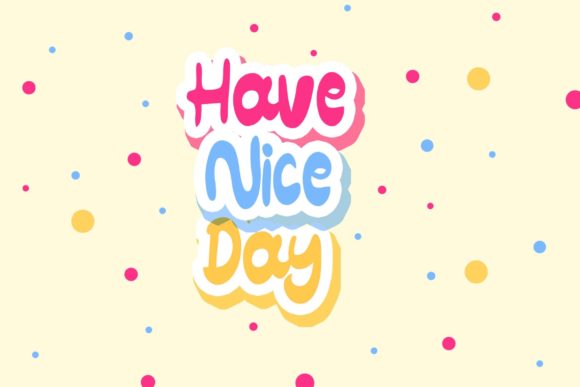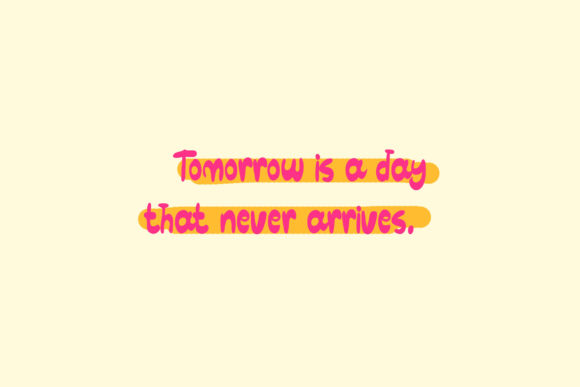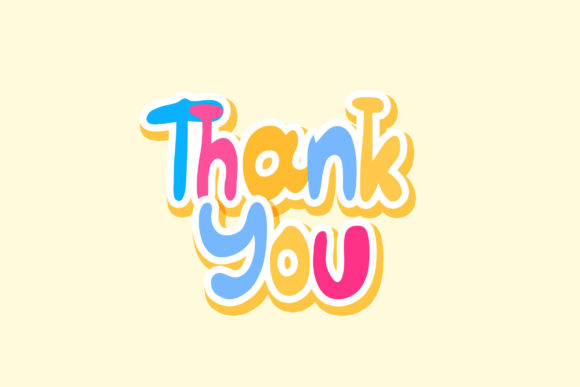
Cacha Font: The Sweet and Playful Display Font for Kids’ Projects
Are you looking for a font that can add a touch of fun and playfulness to your designs? Look no further than Cacha Font! This display font is perfect for kids’ activities, school projects, and any other design that requires a sweet and original look. In this article, we’ll dive into the features and benefits of Cacha Font, and explore how it can elevate your designs to the next level.
What is Cacha Font?
Cacha Font is a display font designed to bring a sense of fun and playfulness to your designs. Its sweet and playful look makes it an ideal choice for kids’ projects, school assignments, and any other creative endeavor that requires a youthful touch. The font’s unique and original style sets it apart from other fonts, making it a great addition to your font collection.
Features of Cacha Font
Cacha Font boasts several features that make it a standout font for designers and crafters. Some of its key features include:
- Playful and Fun Design: Cacha Font’s design is carefully crafted to evoke a sense of fun and playfulness, making it perfect for kids’ projects and activities.
- Sweet and Original Look: The font’s sweet and original look sets it apart from other fonts, adding a unique touch to your designs.
- Display Font: Cacha Font is a display font, making it ideal for headlines, titles, and other prominent text elements in your designs.
- Easy to Read: Despite its playful design, Cacha Font is easy to read, making it suitable for both kids and adults.
Benefits of Using Cacha Font
Using Cacha Font in your designs offers several benefits, including:
- Adds a Touch of Fun: Cacha Font adds a touch of fun and playfulness to your designs, making them more engaging and appealing to kids and adults alike.
- Perfect for Kids’ Projects: The font’s design and style make it perfect for kids’ projects, school assignments, and activities.
- Increases Creativity: Cacha Font’s unique and original style can inspire creativity and imagination in designers and crafters.
- Versatile: The font can be used in a variety of design applications, from digital projects to print materials.
How to Use Cacha Font in Your Designs
Using Cacha Font in your designs is easy! Here are a few tips to get you started:
- Pair it with Other Fonts: Cacha Font pairs well with other fonts, so feel free to experiment with different font combinations to create a unique look.
- Use it for Headlines and Titles: Cacha Font’s display font style makes it perfect for headlines and titles, so use it to add a touch of fun and playfulness to your designs.
- Experiment with Colors: Cacha Font looks great in a variety of colors, so don’t be afraid to experiment with different color schemes to find the perfect look for your design.
Cacha Font is a sweet and playful display font that’s perfect for kids’ projects, school assignments, and any other design that requires a fun and original look. With its unique and original style, Cacha Font is sure to add a touch of fun and playfulness to your designs. So why wait? Add Cacha Font to your favorite designs and watch how it makes them come alive!
Here are a few tips for designers and crafters looking to get the most out of Cacha Font:
- Use it for Kids’ Projects: Cacha Font is perfect for kids’ projects, so don’t hesitate to use it for school assignments, activity sheets, and other kids’ materials.
- Experiment with Different Colors: Cacha Font looks great in a variety of colors, so experiment with different color schemes to find the perfect look for your design.
- Pair it with Other Fonts: Cacha Font pairs well with other fonts, so feel free to experiment with different font combinations to create a unique look.